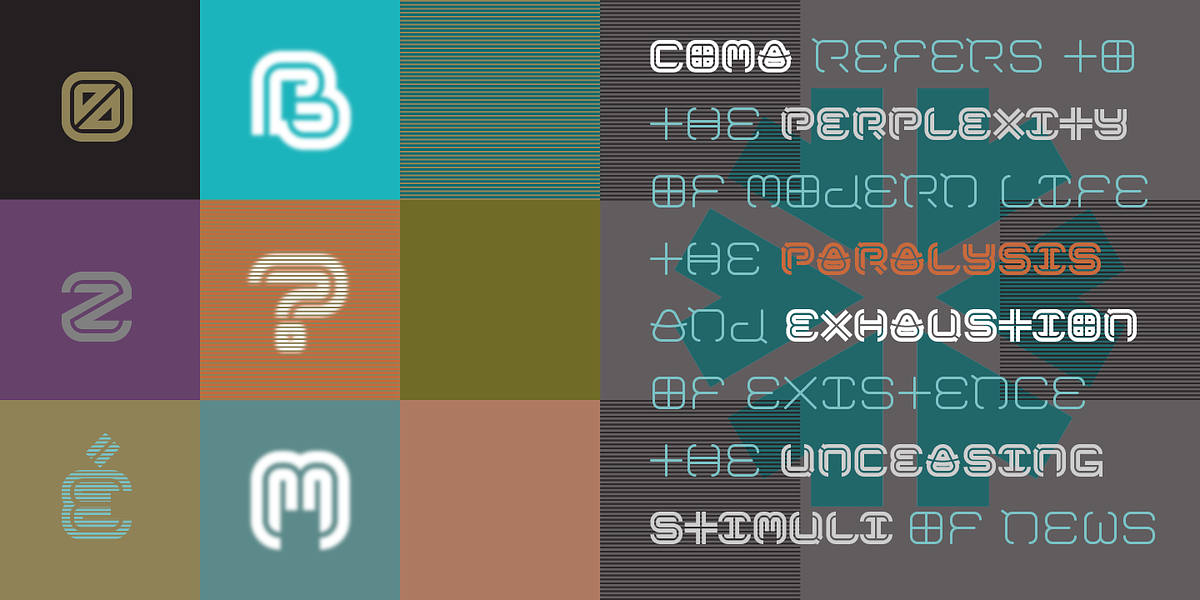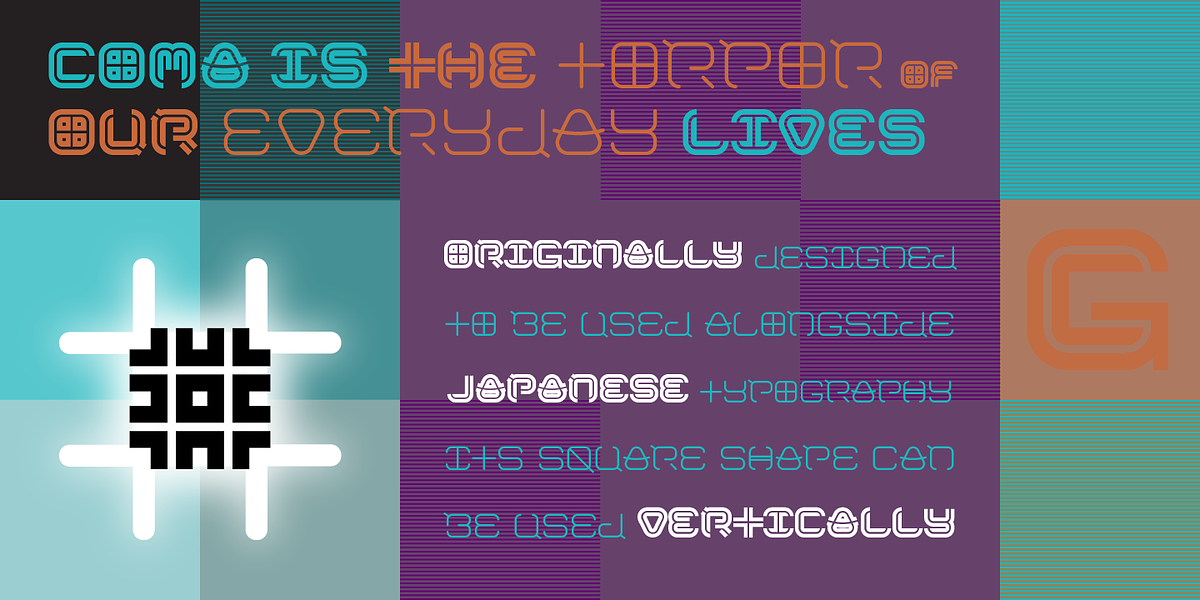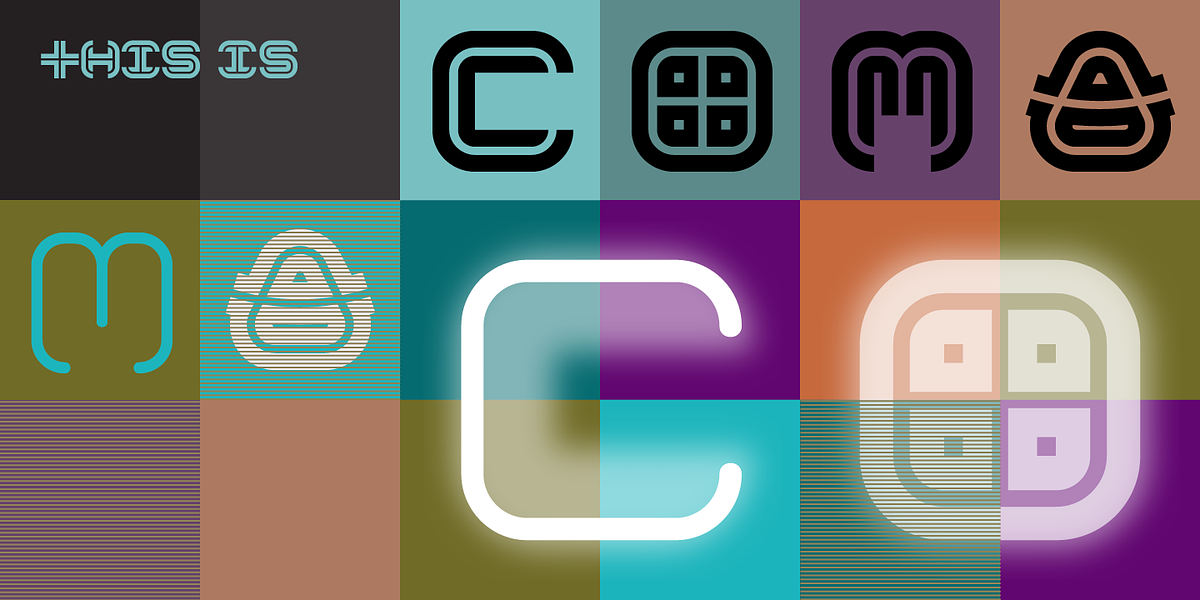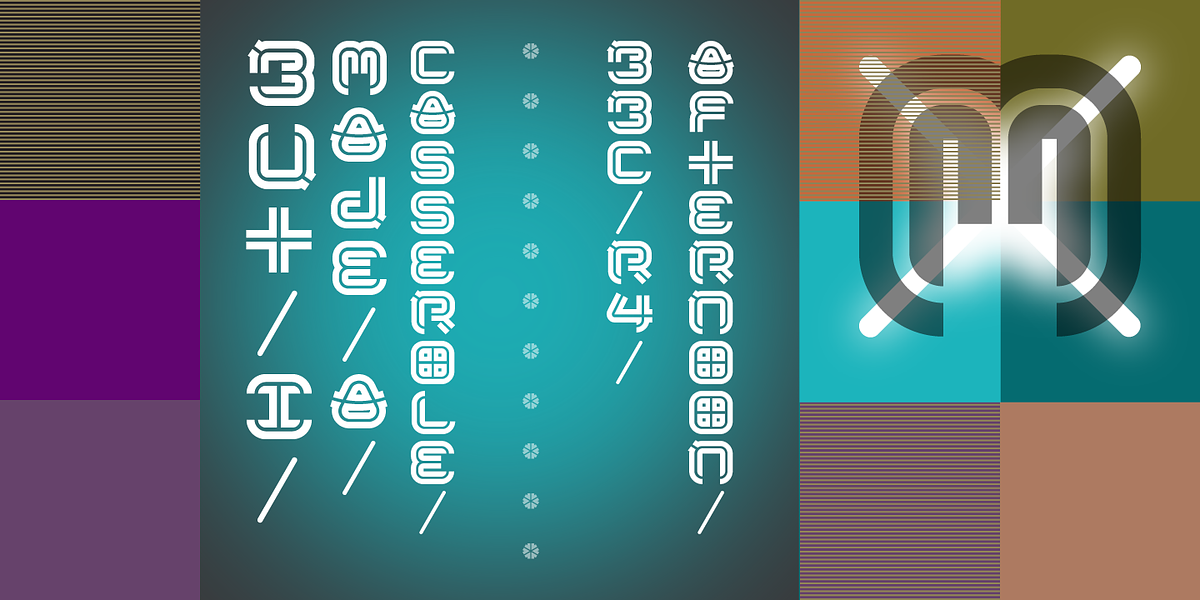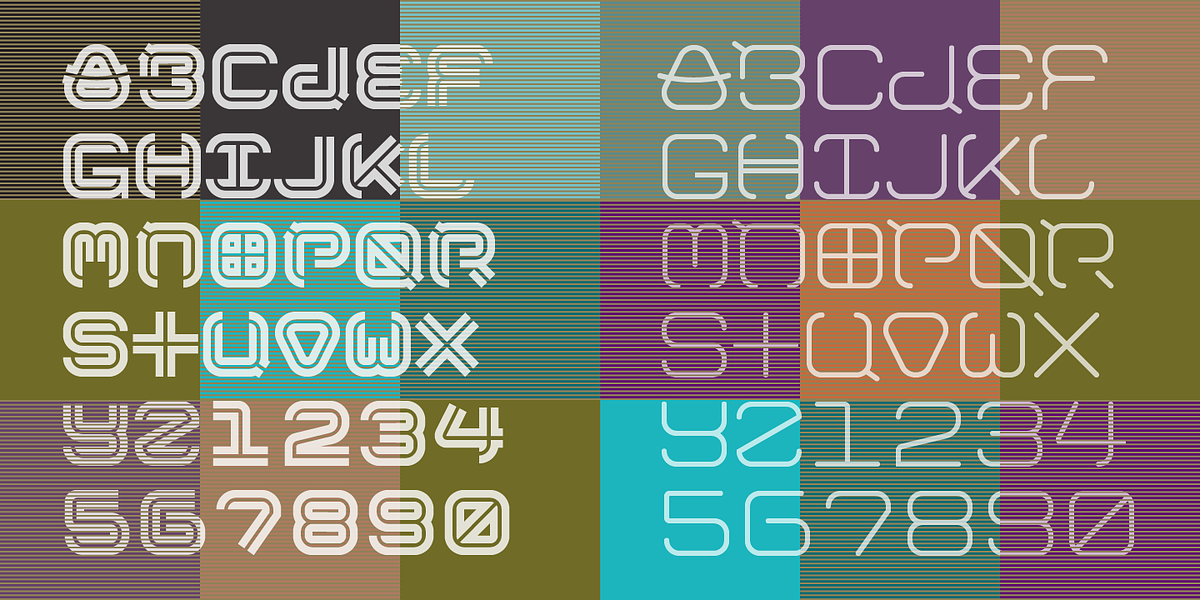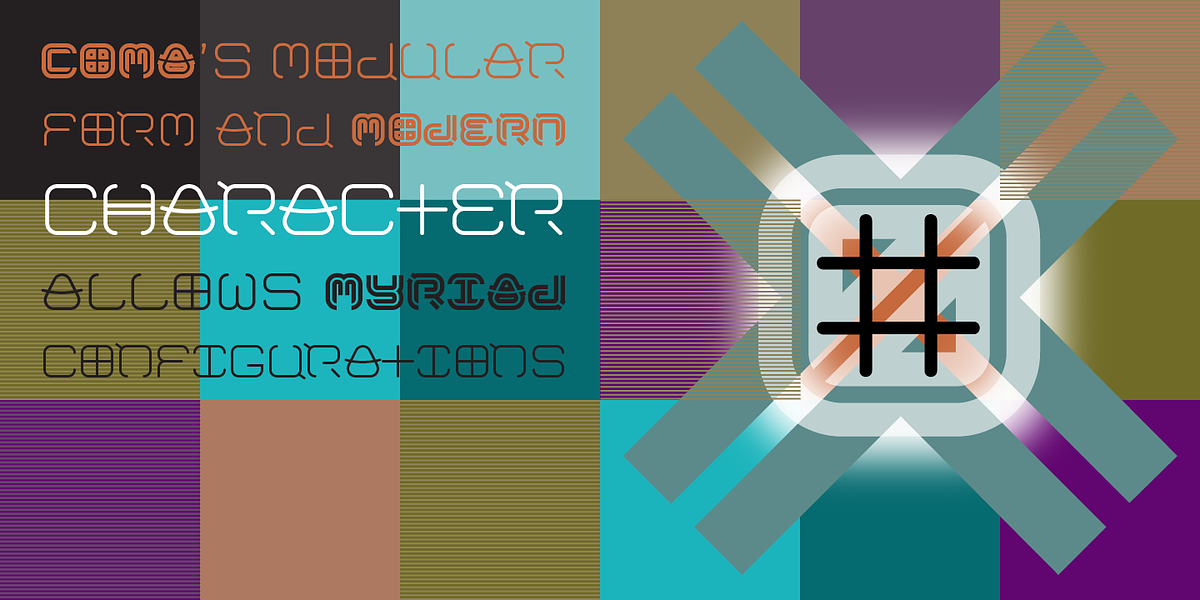
Coma
Coma is a geometric sans-serif font designed for versatile use in both horizontal and vertical orientations. Its uniform letterforms and modular construction lend themselves well to headlines, branding, and visual identity applications. The font's bold, futuristic aesthetic aligns with its name, which evokes the complexities of modern life.